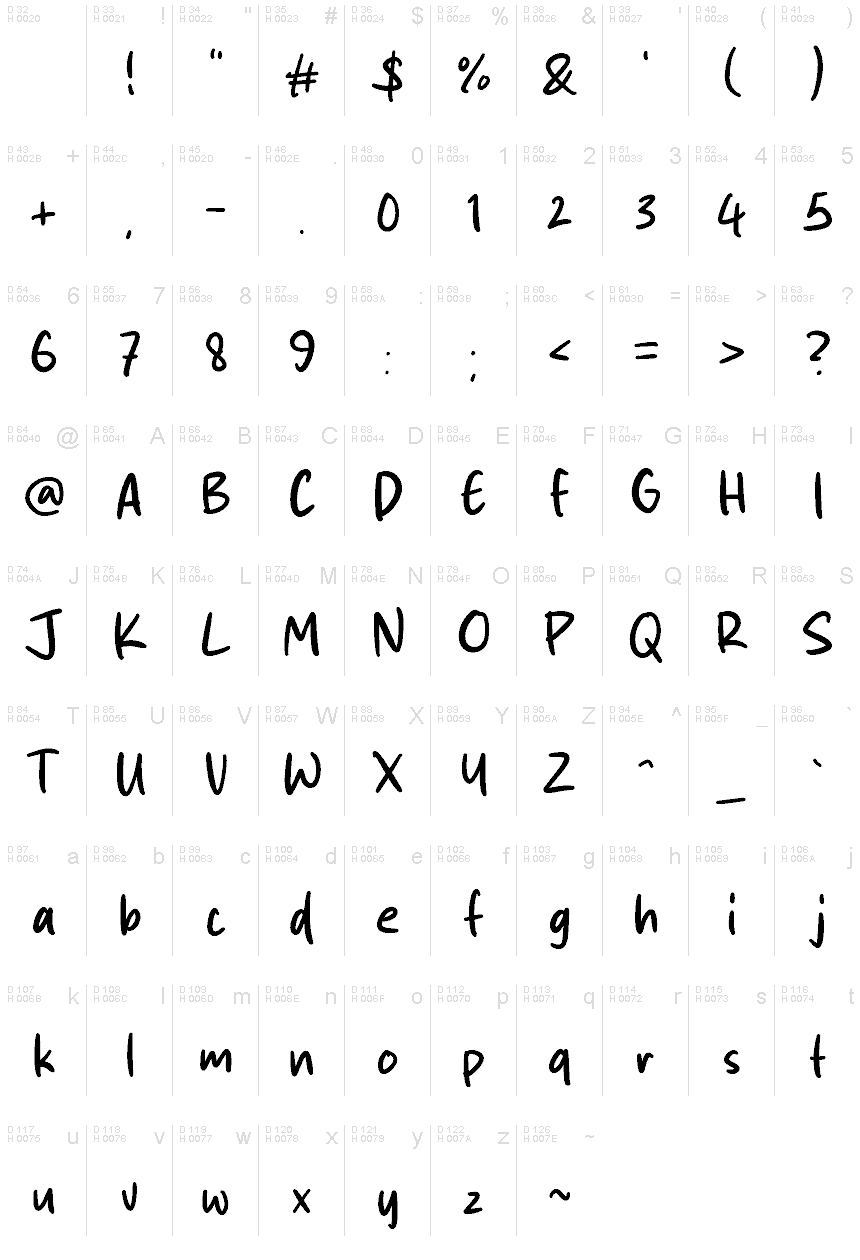
Jurnal Note
Jurnal Note font is a free handwritten font by MJType. Its casual style brings a modern feel to the table with an inviting mood and personal touch. The approachable language is portrayed in the subtle unevenness of each letter, making any design project appear genuine, unfiltered, and exciting.
Use Jurnal Note in packaging designs for hand-made products, apparel branding projects, name card presentations, invitation cards for special occasions like birthdays or weddings, labels or tags for food items and cosmetics. Also use it in movie/event posters and T-shirt designs alike.